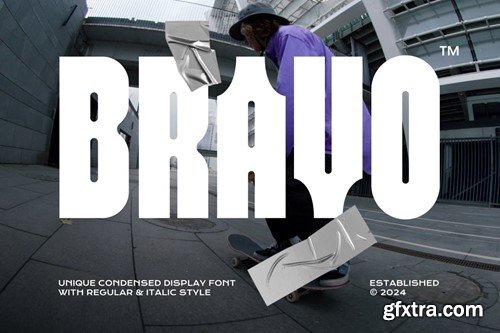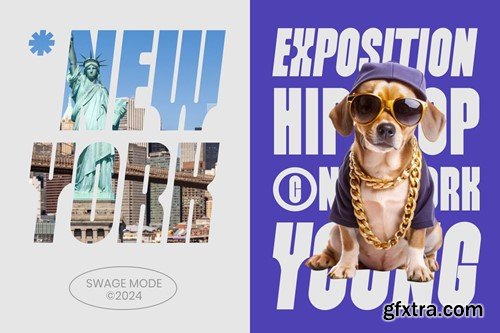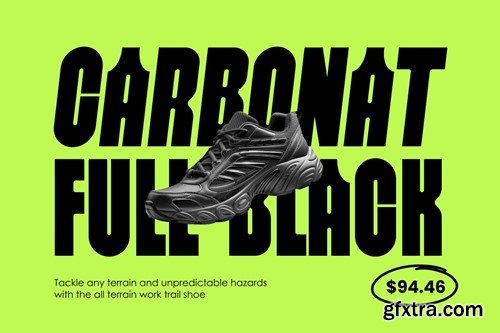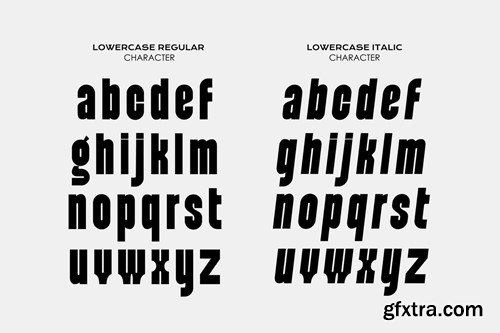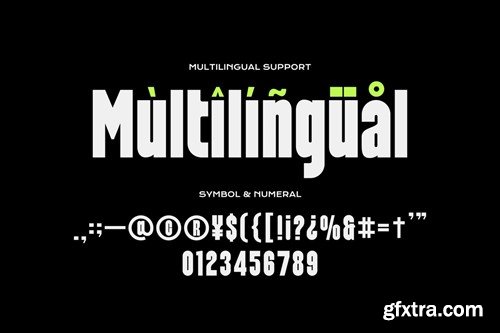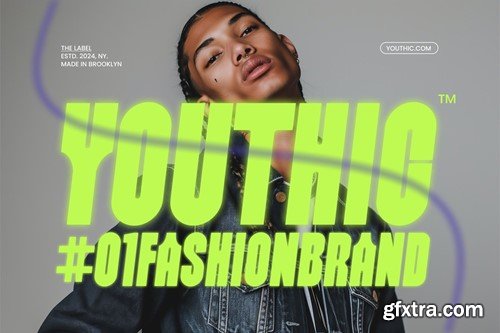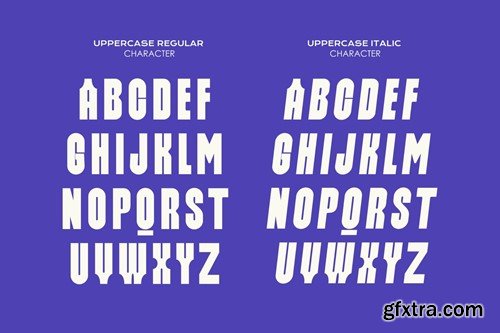
Bravo is font that has a very bold body, but still has high contrast. Designed for the digital age, Bravo is a neo-grotesque typeface, providing flexibility and adaptability across various media. This font looks very modern when paired with contrasting design colors. Stands out with its neo-grotesque style, offering a contemporary twist on the grotesk tradition. A casual, approachable feel, suitable for both corporate and creative environments. Bravo is not just a font but a comprehensive tool for designers seeking a reliable, elegant, and functional typeface. This font is impressive and features a clean and elegant font, professionally shaped, and as a result, it will easily match a variety of creations. Ideal for corporate branding and advertising. Its geometric construction and modest design lend a sense of understated sophistication. It's perfect for identity, package design, logos, branding, promotions, book covers, magazine layouts, or simply as a stylish text overlay onto any background image. Features: Includes: Thank you for purchasing! Good luck designing! Regards, Imoodev